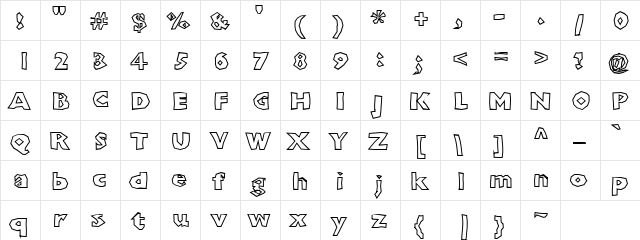
ShlockoBlockoOutline Regular
| Version | 1.0 of this chunky font |
Design Context for ShlockoBlockoOutline Typeface
ShlockoBlockoOutline brings ornamental detail and strong personality to headlines and identities, where visual impact matters more than quiet functionality.
Font Pairing: Pair with a clean neutral sans-serif for body copy to let ShlockoBlockoOutline's character lead without overwhelming the composition.
Pro Tip: Use ShlockoBlockoOutline exclusively at display sizes — it was designed to be seen, not read at length. Let a neutral companion handle body copy.